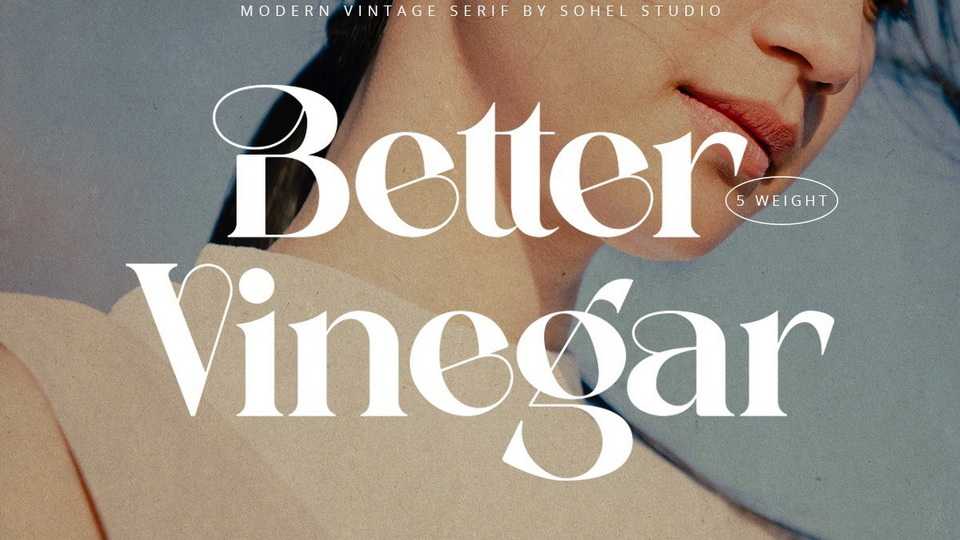
Download Better Vinegar font, a modern, vintage serif typeface. Better Vinegar font is perfect for an elegant and luxury logo, classy editorial design, women’s magazine, fashion or cosmetic brand and more.